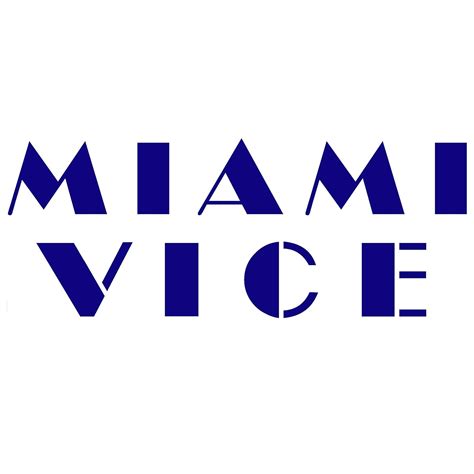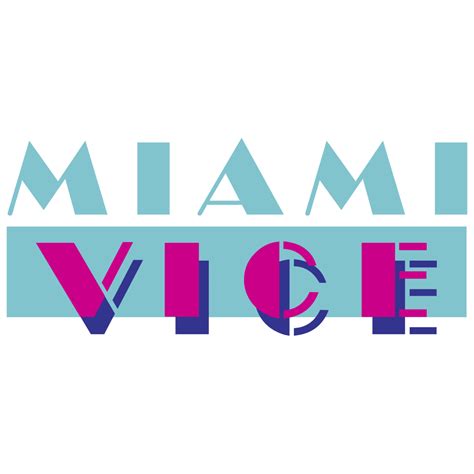
In the world of design and typography, certain fonts become iconic due to their association with popular culture. One such font is the Miami Vice Font, which has left an indelible mark on the design landscape. This font, inspired by the classic 1980s television series *Miami Vice*, has a unique aesthetic that captures the essence of the era's neon lights, pastel colors, and vibrant energy. The font's distinctive style has made it a favorite among designers looking to evoke a sense of nostalgia and retro charm.
The Origins of the Miami Vice Font
The Miami Vice television series, which aired from 1984 to 1989, was known for its stylish visuals and groundbreaking cinematography. The show’s creators, Michael Mann and Anthony Yerkovich, paid meticulous attention to detail, ensuring that every aspect of the series, from the costumes to the set design, reflected the glamorous and gritty world of Miami’s undercover police officers. The font used in the show’s title sequence and promotional materials became an integral part of its visual identity.
The Miami Vice Font is characterized by its bold, geometric shapes and clean lines. The letters often feature sharp angles and a modernist aesthetic, which was a departure from the more traditional serif fonts of the time. This unique design made it instantly recognizable and contributed to the show's iconic status.
Characteristics of the Miami Vice Font
The Miami Vice Font has several distinctive features that set it apart from other fonts:
- Bold and Geometric Design: The font’s bold strokes and geometric shapes give it a strong, modern look. The letters are often angular and have a sense of precision and clarity.
- Clean Lines: The font’s clean lines and minimalistic design make it easy to read and visually appealing. This simplicity adds to its timeless appeal.
- Modernist Aesthetic: The font’s modernist aesthetic reflects the design trends of the 1980s, making it a perfect choice for projects that aim to capture the spirit of that era.
- Versatility: Despite its distinctive style, the Miami Vice Font is versatile and can be used in a variety of contexts, from graphic design to branding and advertising.
Using the Miami Vice Font in Design Projects
The Miami Vice Font is a versatile tool for designers looking to add a touch of retro charm to their projects. Here are some ways to incorporate this iconic font into your design work:
Graphic Design
In graphic design, the Miami Vice Font can be used to create eye-catching posters, flyers, and brochures. Its bold and geometric design makes it perfect for headlines and titles, while its clean lines ensure readability. Designers can also experiment with color schemes inspired by the neon lights and pastel hues of the 1980s to enhance the retro feel.
Branding and Advertising
For branding and advertising projects, the Miami Vice Font can help create a strong and memorable visual identity. Its modernist aesthetic and bold design make it ideal for logos, packaging, and promotional materials. Brands looking to evoke a sense of nostalgia and retro charm can benefit from incorporating this font into their design elements.
Web Design
In web design, the Miami Vice Font can be used to create visually appealing and user-friendly websites. Its clean lines and bold design make it easy to read on screens, while its modernist aesthetic adds a touch of sophistication. Designers can also use the font in combination with other retro-inspired design elements, such as neon colors and geometric patterns, to create a cohesive and engaging user experience.
Typography and Layout
When using the Miami Vice Font in typography and layout, it’s important to consider the overall design and how the font will complement other elements. Here are some tips for effective use:
- Pairing with Other Fonts: The Miami Vice Font pairs well with other bold and geometric fonts, as well as more traditional serif fonts. Experiment with different combinations to find the best fit for your project.
- Color Schemes: Use color schemes inspired by the 1980s, such as neon colors and pastel hues, to enhance the retro feel of the font. Consider using contrasting colors to make the text stand out.
- Spacing and Alignment: Pay attention to spacing and alignment to ensure that the text is easy to read and visually appealing. Use generous line spacing and alignment techniques to create a balanced and harmonious layout.
Inspiration and Examples
To get inspired by the Miami Vice Font, it’s helpful to look at examples of how it has been used in various design projects. Here are some notable examples:
The title card from the *Miami Vice* series is a classic example of the font's use. The bold, geometric design and clean lines make it instantly recognizable and visually striking.
This poster for a retro-themed event uses the Miami Vice Font to create a nostalgic and vibrant design. The neon colors and geometric patterns complement the font's modernist aesthetic, making it a perfect choice for the event's branding.